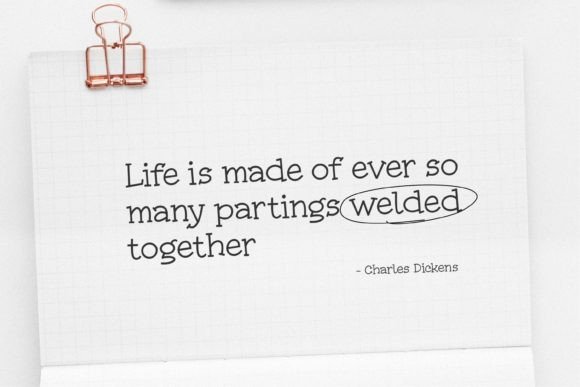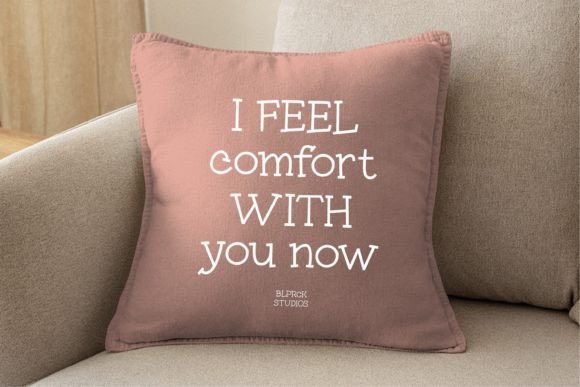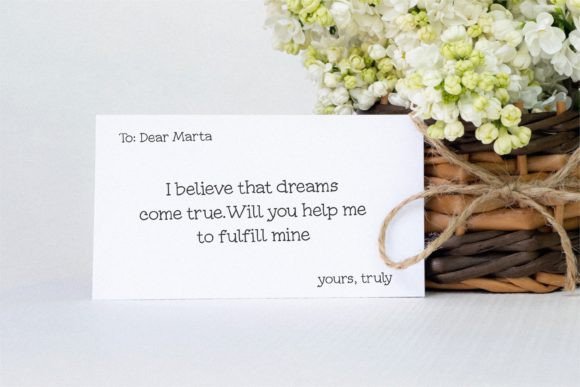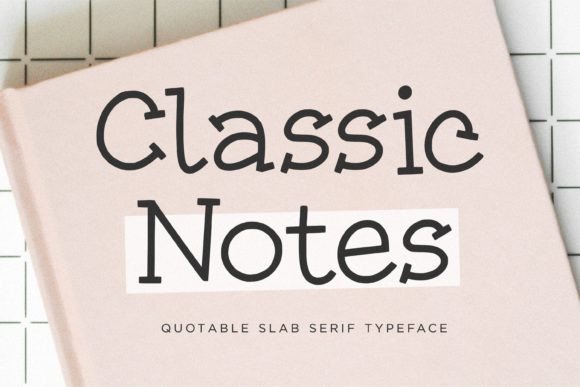
Classic Notes Font
About the Classic Notes Font
The Classic Notes Font offers a perfect balance of form and function for your design needs. Classic Notes is a Quotable Slab Serif Typeface Font.
This font captures the essence of vintage typewriters, with a distinct and easily recognizable aesthetic.
This font is perfect for projects that require a vintage touch, such as vintage-inspired branding, editorial designs, and book covers. Embrace the nostalgia of analog writing with our typewriter fonts, a tribute to the timeless art of typography.
Classic Notes excels in headlines, short text blocks, and display applications like posters and logos. Its strong character makes it ideal for projects needing a vintage yet sophisticated feel, such as branding for coffee shops, bookstores, or artisanal products. Avoid using it for large amounts of body text or UI elements; its slab serifs can reduce readability in extended passages.
Pairing Classic Notes with a clean sans-serif like Helvetica Neue for body copy creates a balanced and sophisticated look. For a warmer feel, consider a script font like Allura for accents, or a more geometric sans-serif like Futura for a modern contrast. The overall personality is bold, confident, and slightly nostalgic, conveying a sense of established quality and craftsmanship.